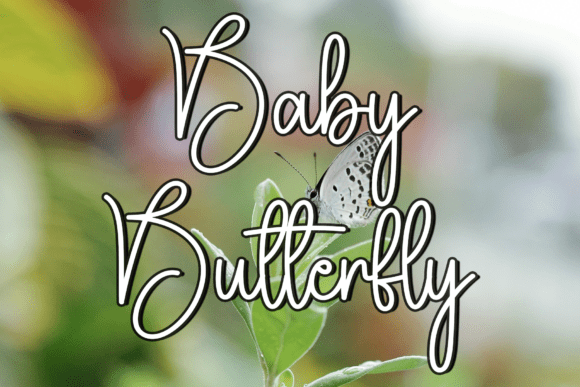
Unveiling the Whimsy of the Baby Butterfly Font
Have you ever found yourself doodling in a journal, letting your pen wander across the page as you try to capture the essence of a beautiful moment? That’s exactly how the Baby Butterfly Font came to be – a reflection of the free-spirited, elegant handwriting that brings a touch of sophistication to any design.
This beautiful handwritten script font is the perfect choice for luxury wedding stationery, intimate event branding, high-end editorial signatures, and sophisticated lifestyle photography overlays. With its fluid, modern design, the Baby Butterfly Font is a valuable addition to any designer’s toolkit, offering a unique and stylish way to add personality to their work.
Whether you’re a seasoned designer or just starting out, the Baby Butterfly Font is sure to inspire your creativity and help you bring your most elegant ideas to life.
- Unique Characteristics: The font features whimsical, hand-drawn illustrations of butterflies and flowers, perfect for children’s books, nursery decor, and other whimsical designs
Designer Review: Baby Butterfly Font
At first glance, the Baby Butterfly Font seems like a whimsical and playful addition to any design project. ✨ The delicate, hand-drawn strokes and intricate details create a sense of nostalgia and wonder. The font’s versatility shines through in its various styles and weights, making it perfect for a range of applications, from children’s book titles to branding for small businesses.
One of the standout features of the Baby Butterfly Font is its legibility. ✨ The font is highly readable, even at small sizes, making it an excellent choice for digital displays and small print materials. The font also supports a wide range of languages, making it a great option for global brands and publications.
However, there are some limitations to consider. ⚠️ The font’s complexity can make it difficult to use in situations where a simpler, more straightforward font is needed. Additionally, the font’s intricacy can sometimes make it challenging to pair with other fonts, requiring careful selection to achieve a harmonious look.
Pros and Cons:
- ✨ Highly legible, even at small sizes
- ✨ Versatile and suitable for various applications
- ✨ Supports a wide range of languages
- ⚠️ Can be complex and difficult to pair with other fonts
- ⚠️ May not be suitable for simple or straightforward designs
The Baby Butterfly Font is a beautiful and charming addition to any design project. While it may present some challenges, its unique qualities and versatility make it a worthwhile investment for designers looking to add a touch of whimsy and personality to their work.
The Baby Butterfly Font is perfect for:
- Baby shower invitations and decorations
- Wedding invitations and decorations
- Stationery and greeting cards
For optimal results, use the Baby Butterfly Font in combination with bright and pastel colors to create a whimsical and playful atmosphere.